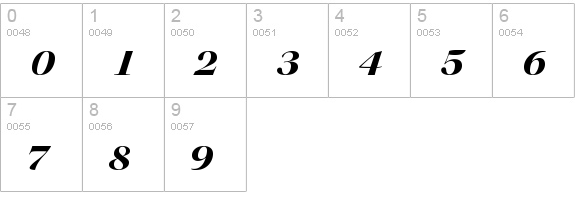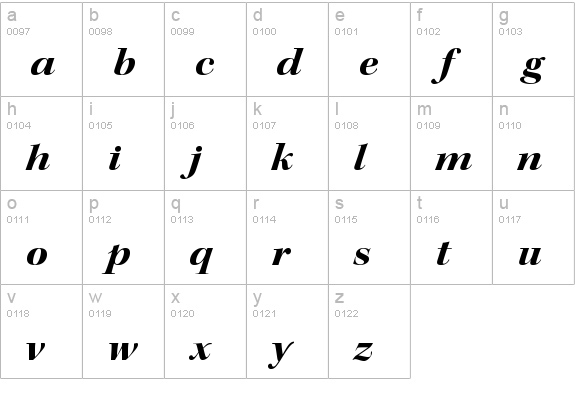
Kepler Std Bold Extended Italic Display Font Details
Kepler Std Bold Extended Italic Display is a strong, high-contrast, extended-width, italic variant in the Kepler typeface family \xE2\x80\x94 well suited to headlines, attention-grabbing titles, and strong calls-to-action.
The Kepler Std Bold Extended Italic Display font is a visually striking and attention-grabbing typeface that is sure to make a bold statement in any design project. Its strong, bold letterforms exude confidence and power, while its extended and italicized traits add a touch of elegance and sophistication. This font is perfect for any display or headline design, whether it's for print or digital media. Its unique and distinctive style will instantly captivate the viewer's attention and leave a lasting impression. Designed with meticulous attention to detail, the Kepler Std Bold Extended Italic Display font is incredibly versatile. It can be used in a wide range of design applications, from branding and advertising to packaging and editorial design. One of the most attractive aspects of this font is that it is available for free download at FontsMarket.com. This means that anyone can access and utilize its stunning features without any cost. Whether you're a professional designer or a hobbyist, this font is easily accessible and can be used to enhance your creative projects. With its bold and extended letterforms, italicized style, and free availability, the Kepler Std Bold Extended Italic Display font is a must-have for any designer looking to create impactful and visually stunning designs. Don't miss out on the opportunity to add this incredible font to your collection. Download it for free at FontsMarket.com today!